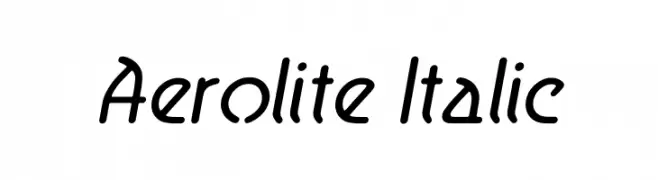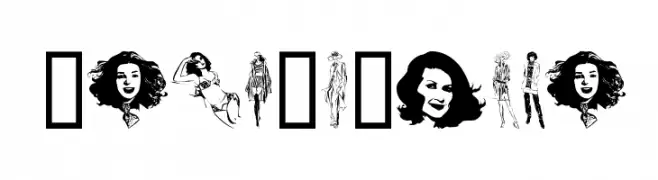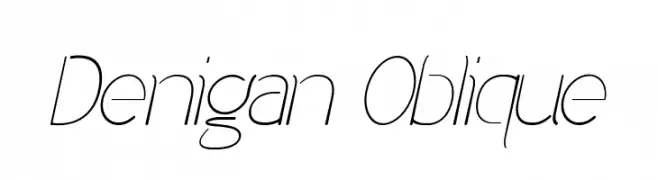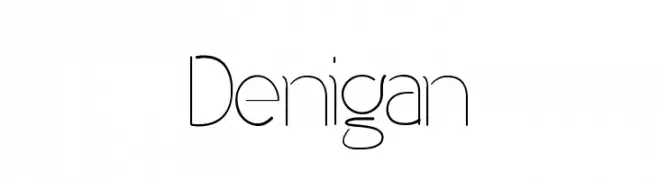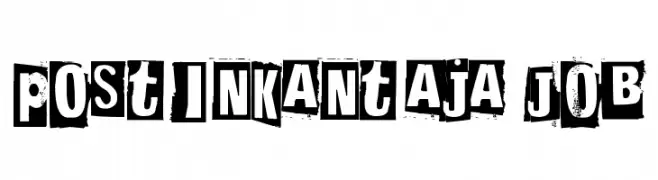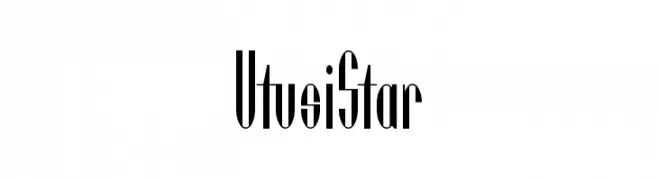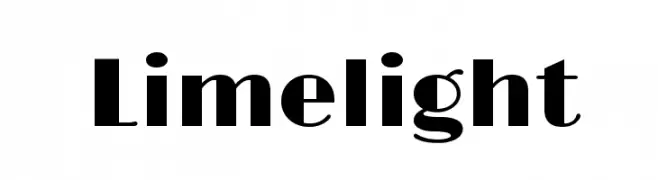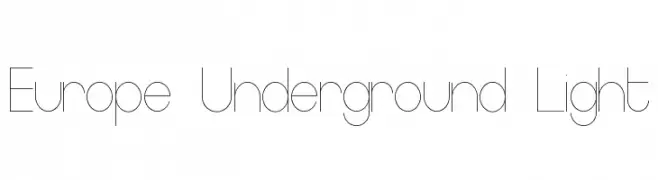
Illustrative, fashion-themed decorative display font featuring women in various poses.
A sleek, modern oblique font with thin strokes and dynamic slant.
A sleek, modern font with thin, elongated strokes and geometric precision.
A bold, distressed font with a cut-out, ransom note style.
A bold, narrow font with a modern, art deco flair.
A modern italic font with elegant slant and subtle stroke contrast.
A bold, high-contrast serif font with dynamic and elegant styling.
A sleek, modern font with thin lines and a minimalist design.